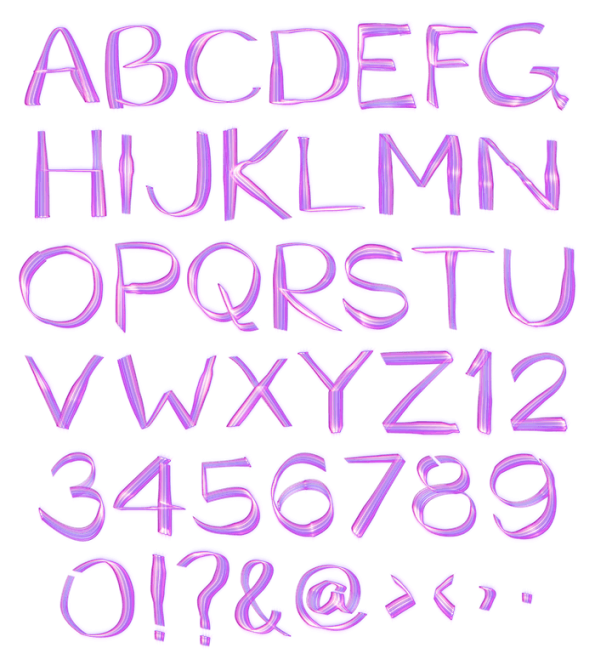
Lines Light Font. Admire Shining Typeface
Lines Light Font is a visually striking graphic element that works especially well if put on a black background. Violet curves of this shining typeface have a close resemblance to colorful bands of northern lights. For those people who want to make every night a bright and unforgettable one, this handmade font will be an irreplaceable detail. Admire its lights with us!
Lights Of Handmade Font Shine Above You
Lines Light Font is more than a handmade font to us. It’s a victory of light and vividness over sadness and darkness. How are you going to stay all moody when you see the violet bands shining happily? It’s simply impossible, and we hope that a mere look at this glowing font will give you a huge inspirational boost. Make your life bright and colorful. We know that you can do it.
How To Glow With Beautiful Typeface
It’s hard to give visual effects of this beautiful typeface full credit. If put on a dark background, Lines Light Font may accomplish wonders by creating a bizarre yet attractive contrast between gloom and light. Where to use this advantage? Actually, it’s entirely up to you because this creative typeface will fit in any project, regardless of the theme.
This font set contains all the elements besides letters, such as figures, punctuation marks and currency symbols.
All letters and glyphs that comprises this font you can see on the preview.